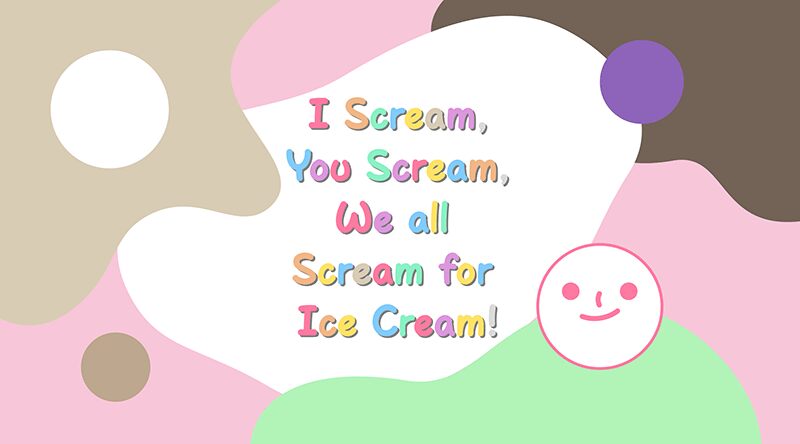
HF Puff by HyFont Studio is a charming semi-bold handwritten font that will add a playful touch to any project. Its unique lettering style evokes a sense of whimsy that is perfect for children's books, greeting cards, and logos. The semi-bold font weight provides just the right amount of emphasis without overpowering the design. HF Puff is versatile enough to be used in any medium – from print to digital – making it an excellent choice for website headers, social media graphics, and branding materials. Let your creativity run wild with HF Puff!